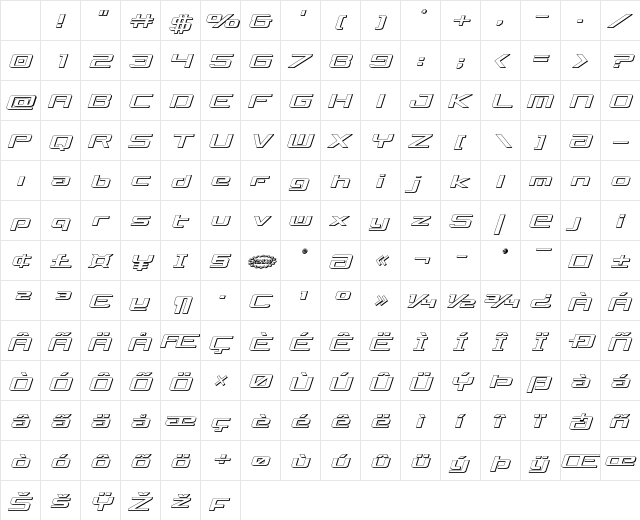
Concielian Break 3D is a composed and adaptable typeface that performs quietly and consistently across a wide range of design contexts. The slanted form adds forward momentum and visual energy.
Pro Tip: Use Concielian Break 3D for emphasis, pull quotes, and subheadings where its slanted energy can add rhythm to the layout.